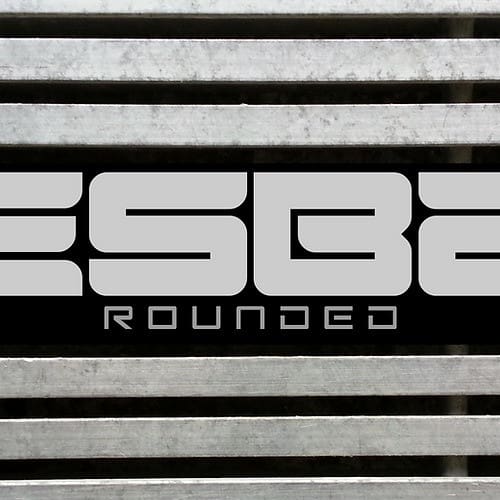
Esba Display Font
Esba Display Font, This Font contains 99 characters, including uppercase, lowercase, numbers and symbols.  Perfectly fit for branding, logo, wedding things, greeting cards, fashion, lookbook, marketing promotion, anytime you want to look fancy elegant but still casual.